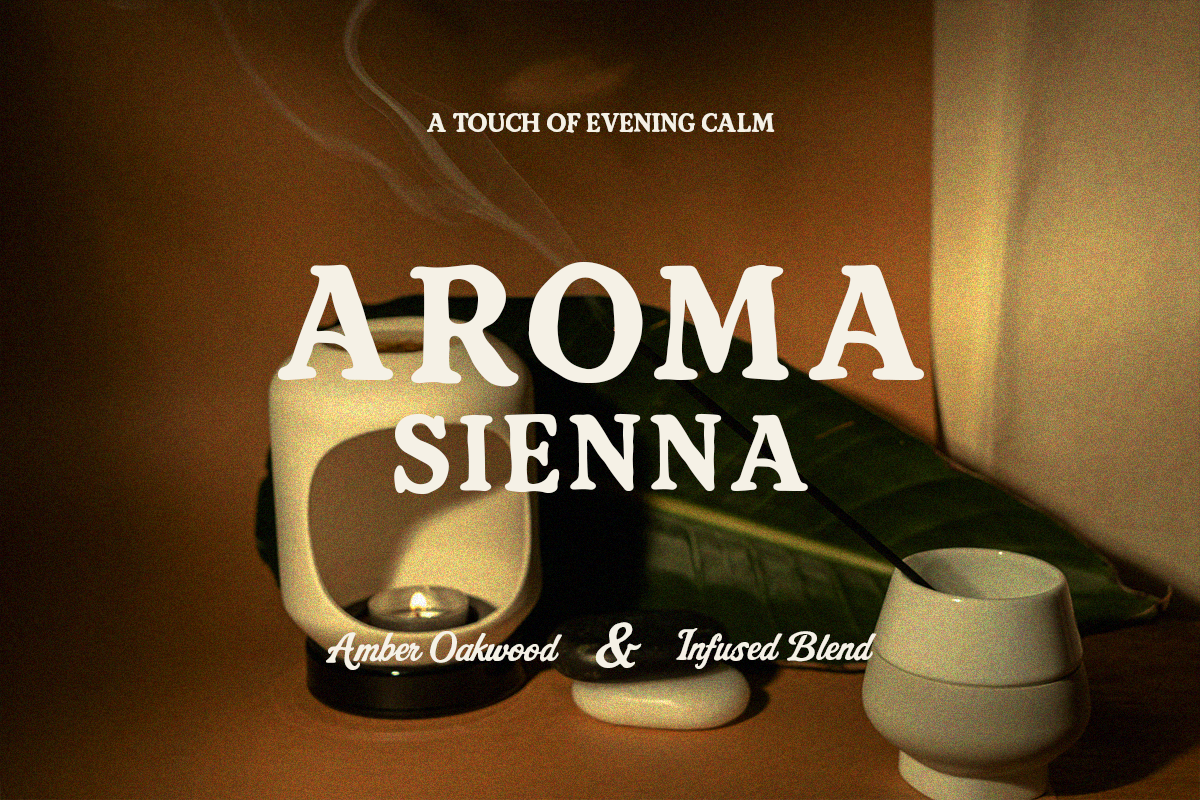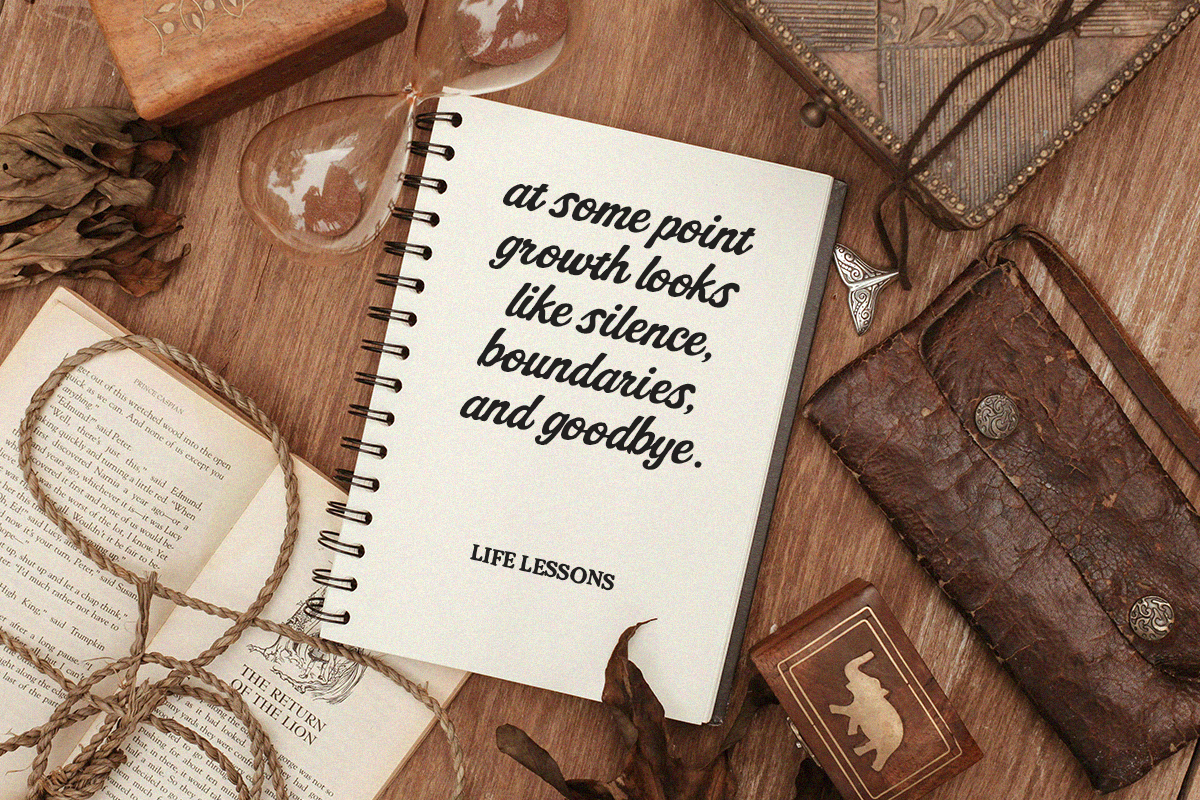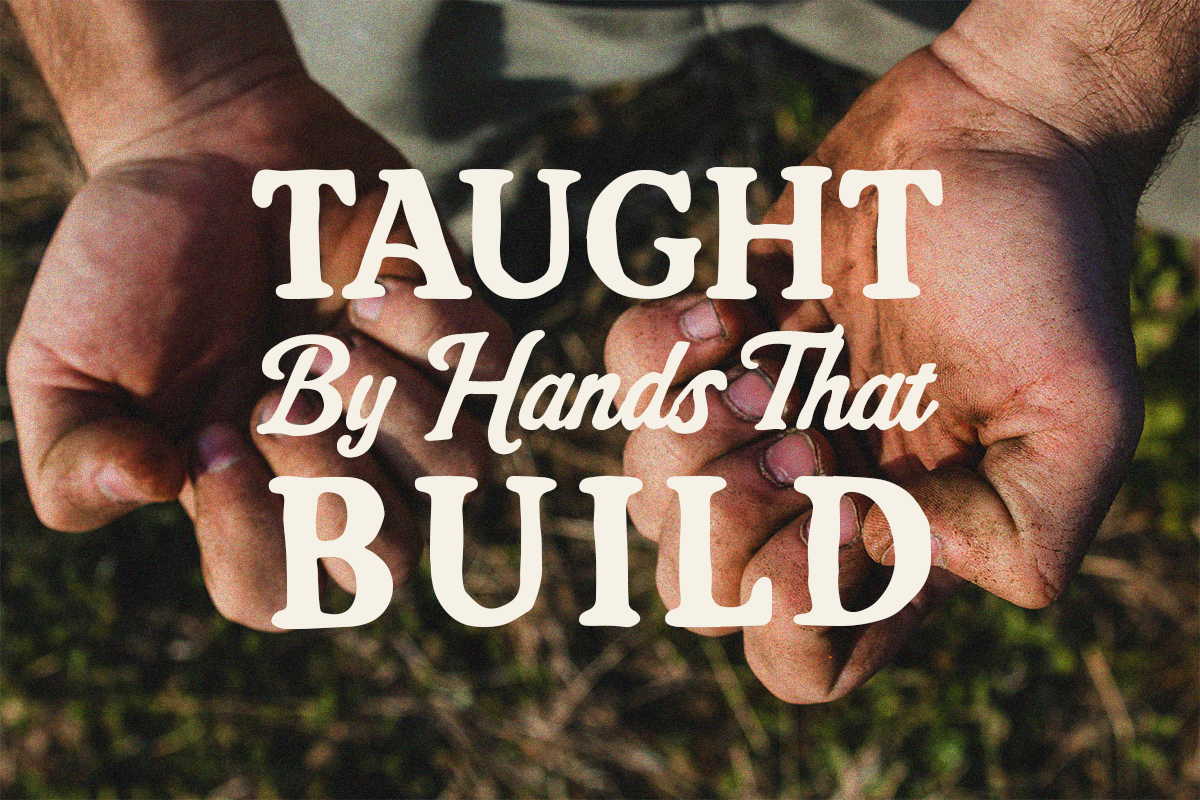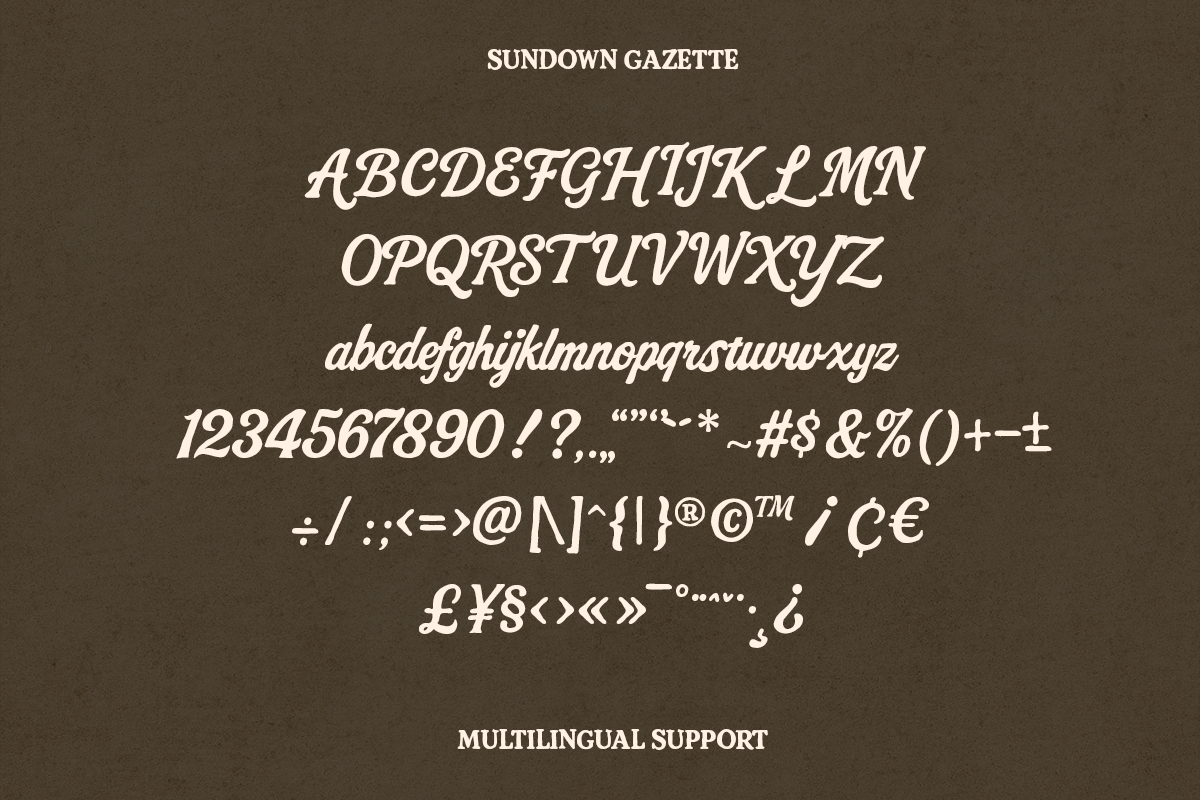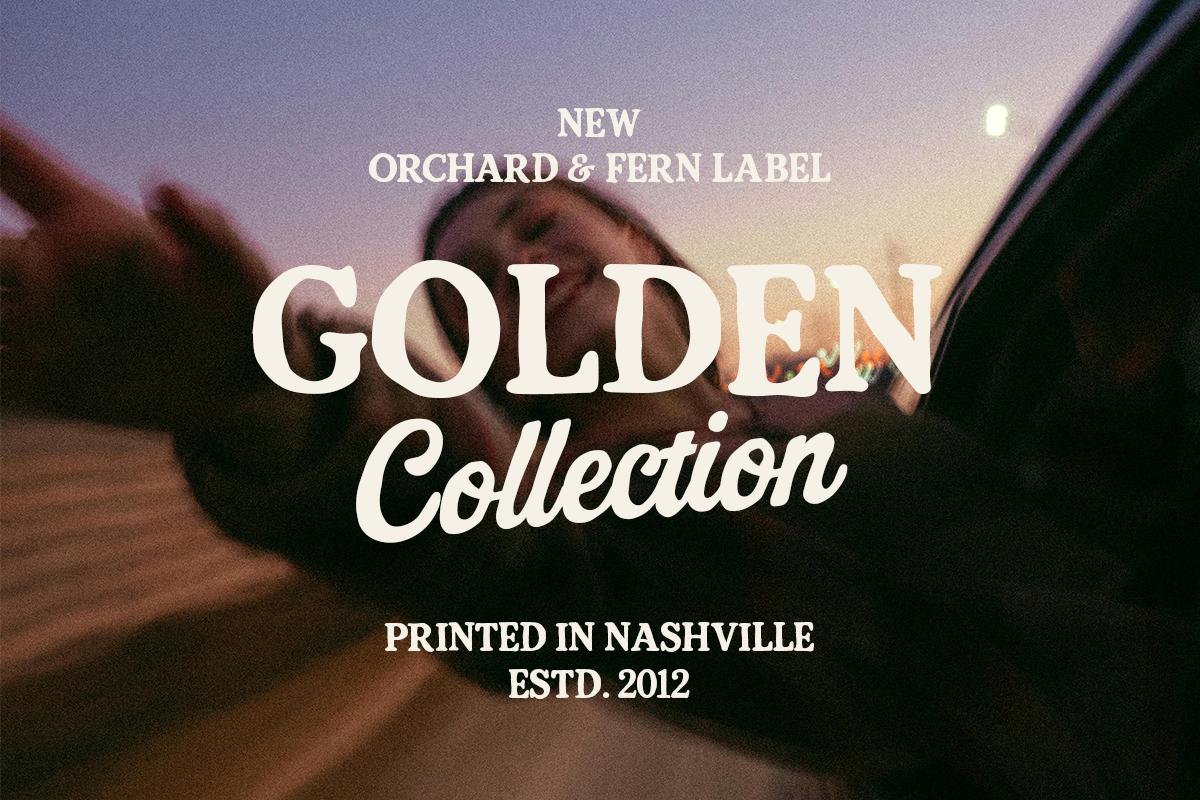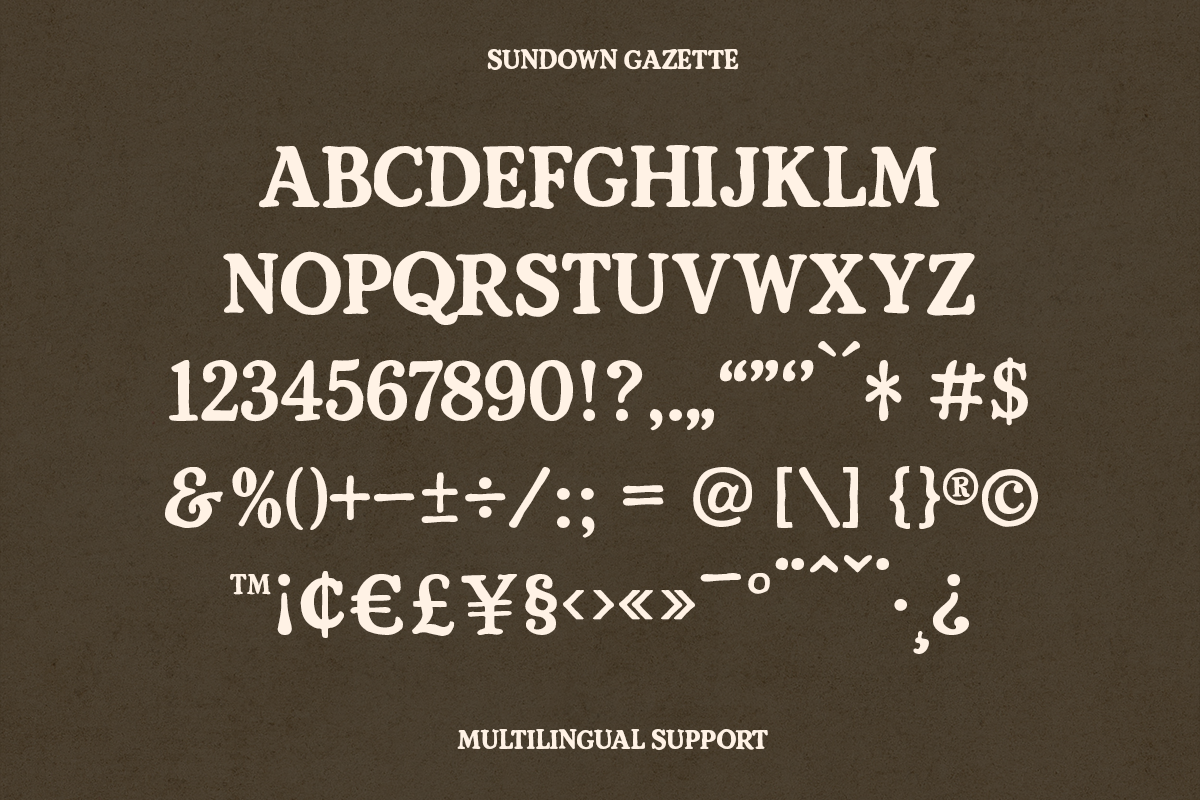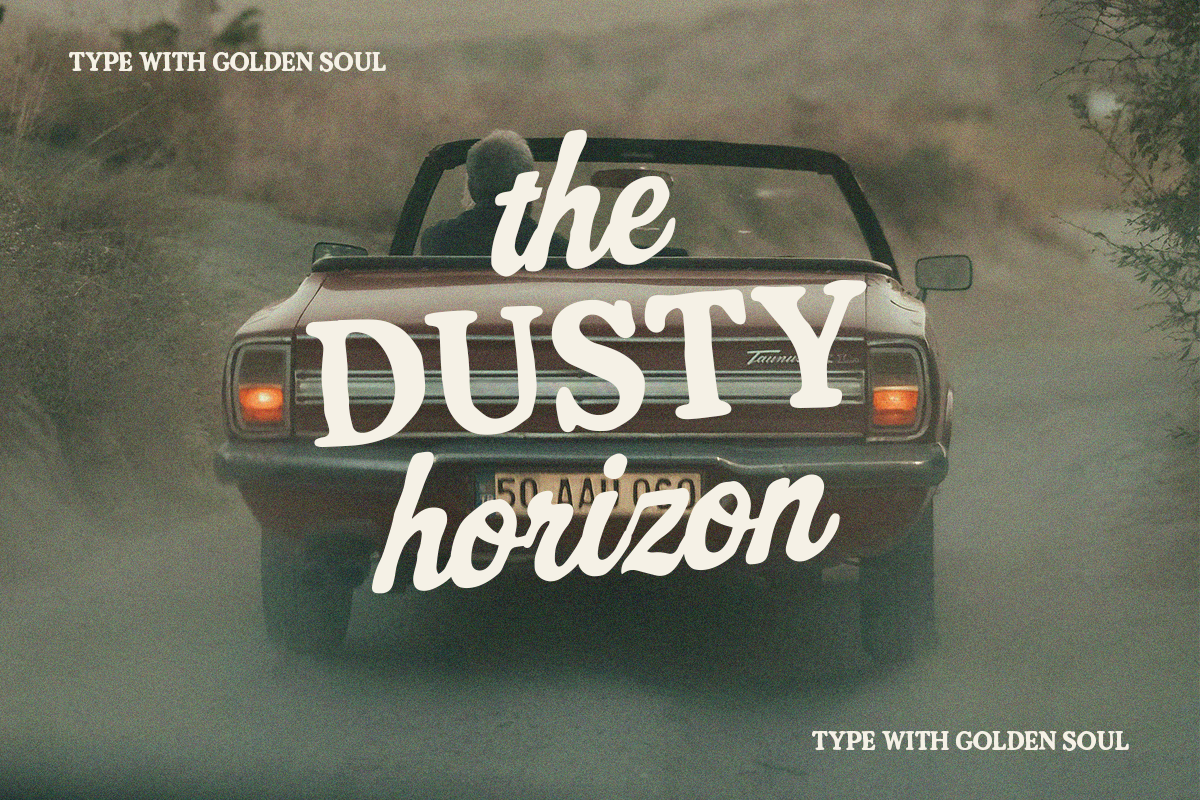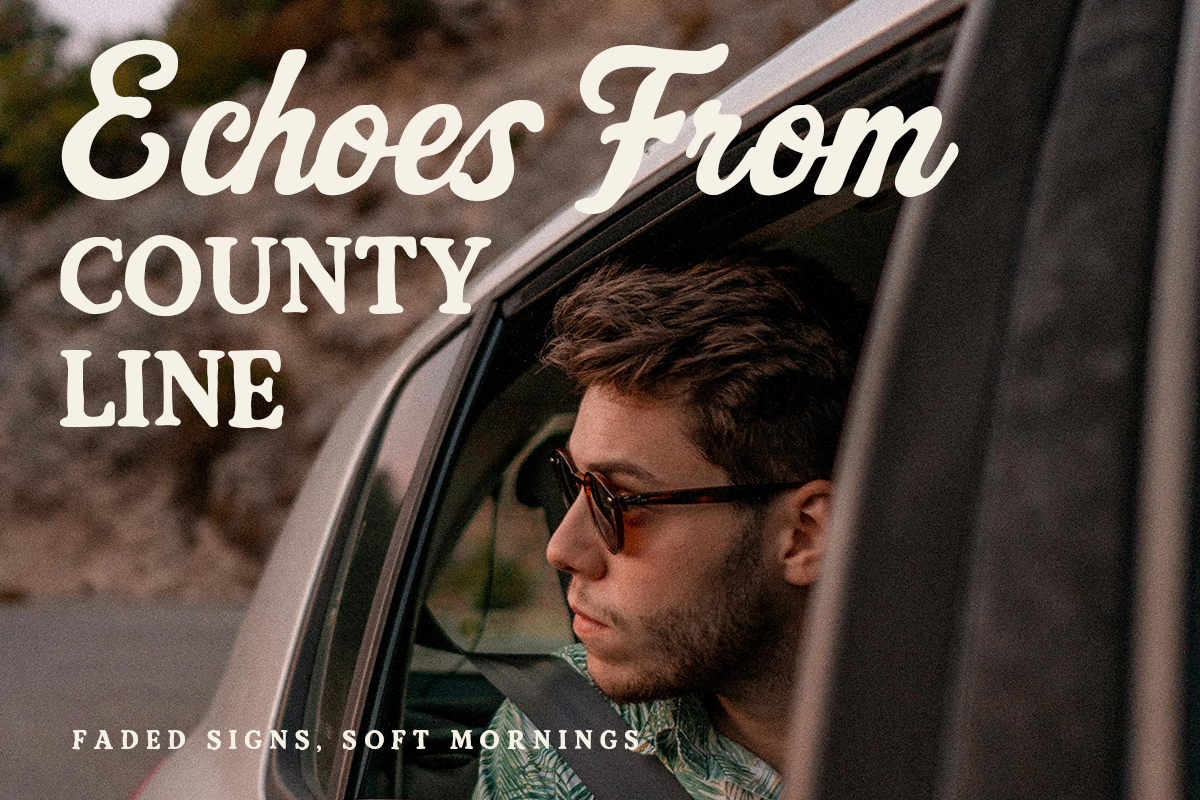
Sundown Gazette – Vintage Display
Sundown Gazette – Vintage Display Font Duo
Sundown Gazette is a bold and nostalgic display font duo that captures the essence of sunlit road trips and handwritten memories. It combines a strong vintage serif with a warm and fluid script – a perfect match for those who seek both character and charm in one package.
Designed to evoke the golden glow of dusty highways, soft mornings, and retro labels, Sundown Gazette works beautifully for editorial headlines, packaging, lifestyle branding, merch, and storytelling designs.
- Full uppercase & lowercase
- Retro-inspired branding
- Travel blogs & summer visuals
- Label design, apparel, posters
- Editorial layouts & packaging with personality
Let your type speak with a golden soul and a touch of handwritten nostalgia.